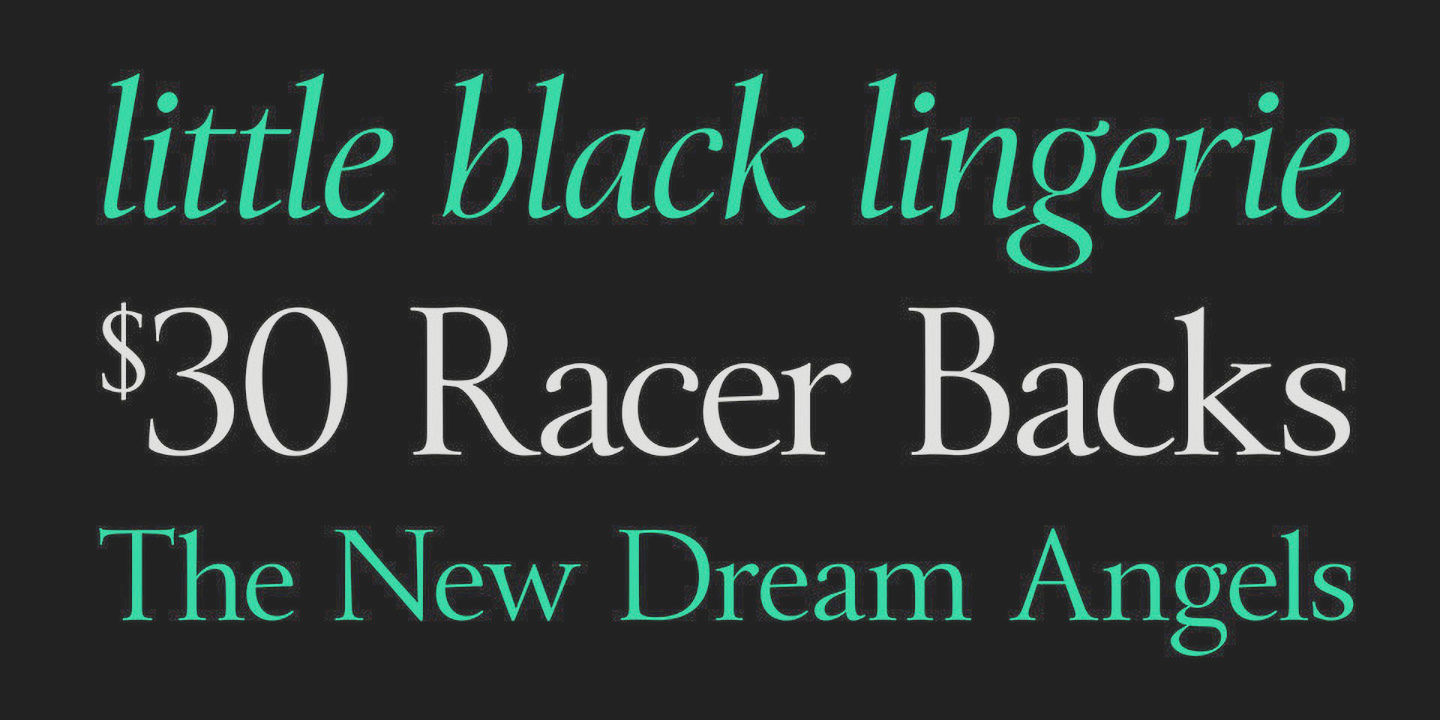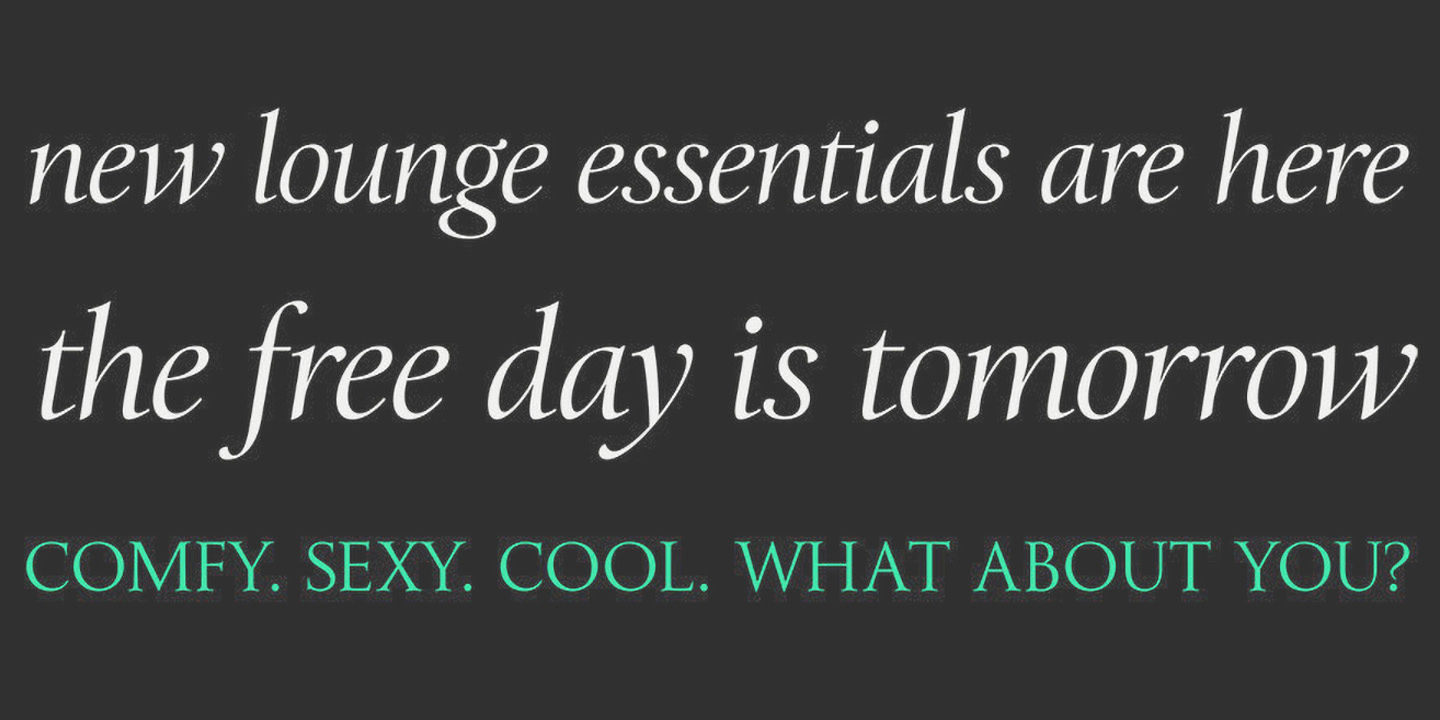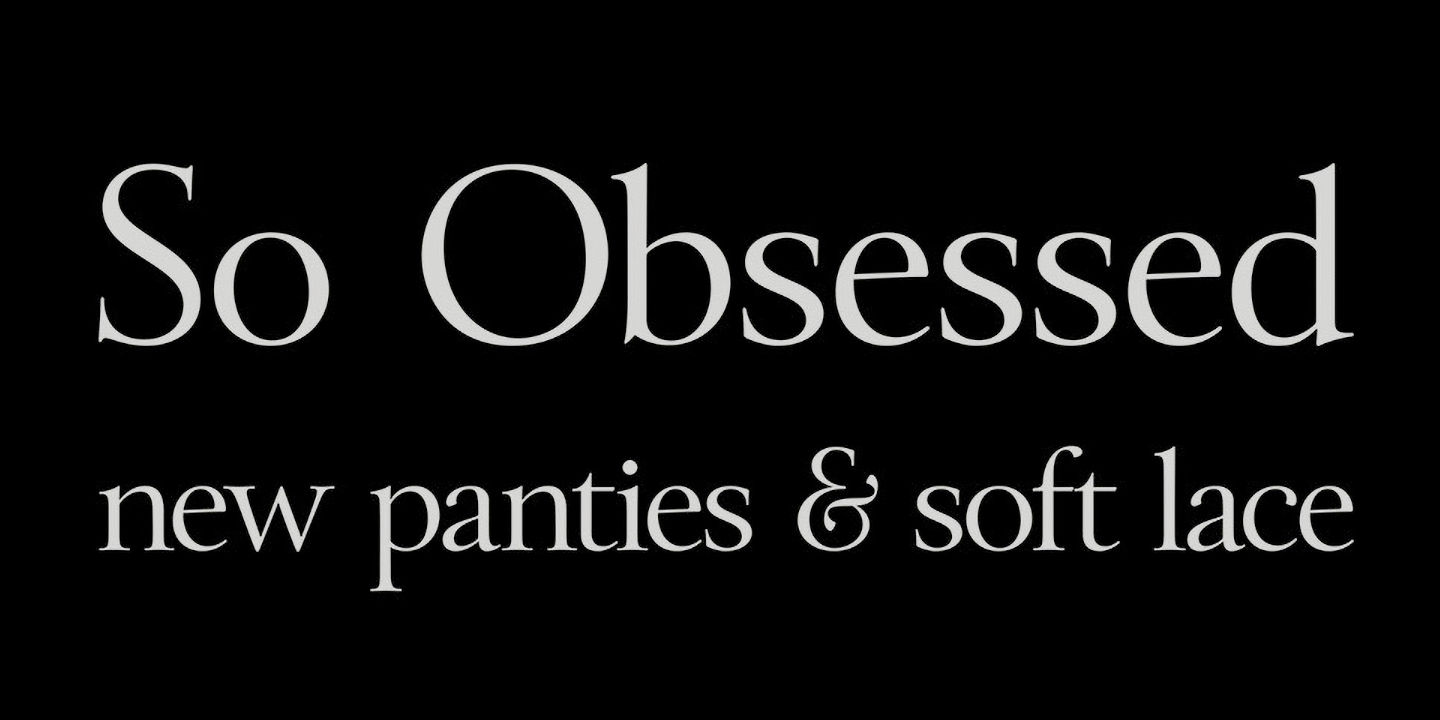
Victoria One
CREATED
2013
CLIENT
Victoria’s Secret and L Brands
DESIGNER
Neil Summerour
Designed in 2013 for Victoria's Secret to repair and expand its original brand typeface. The original letterforms were missing a large portion of their character set and lacked a suitable complementing lowercase, so the existing forms were scrapped and a new, optimized character set was produced from scratch. The completed family included expanded weights with both titling and text options, a new italic, and subsetted web fonts to meet Victoria's Secret's print, online, and app needs.